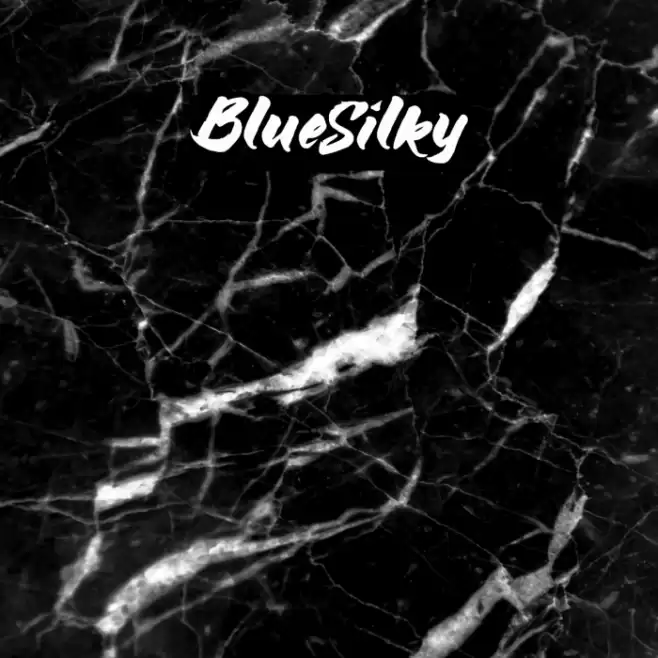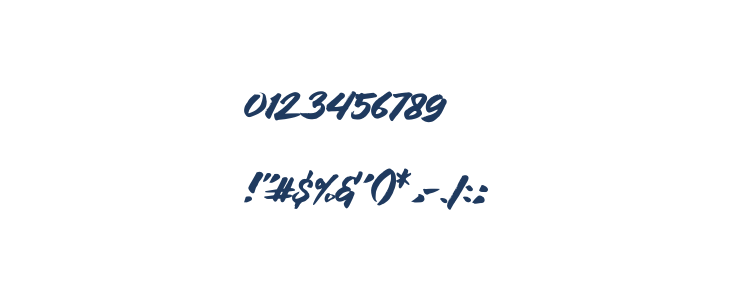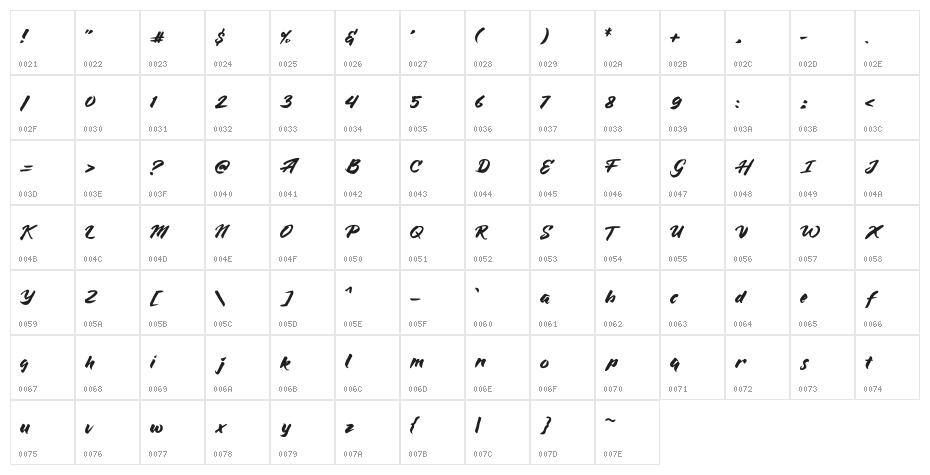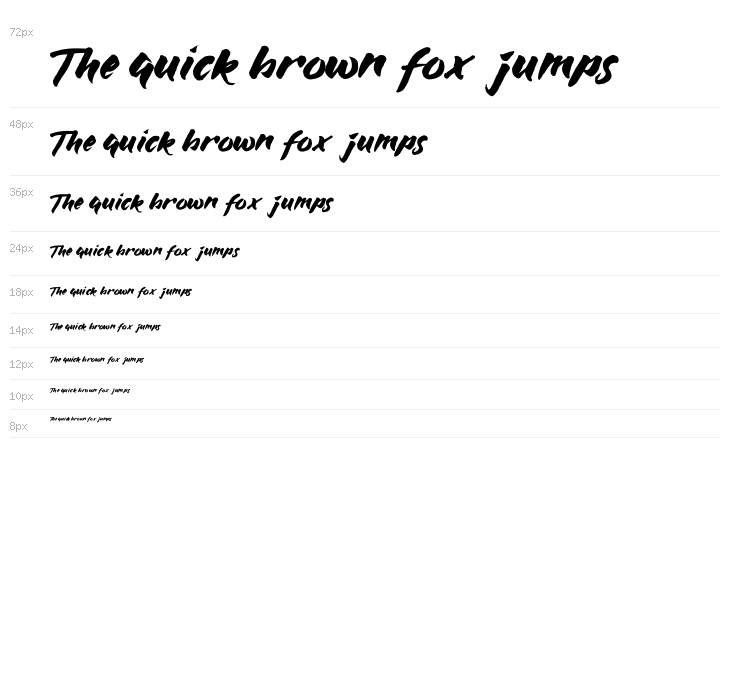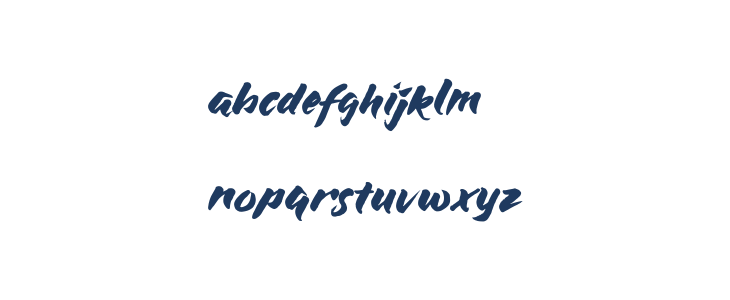
BlueSilky Font
BlueSilky Description
This font features a bold and dynamic script style, characterized by its fluid and connected strokes. The letters exhibit a sense of motion and elegance, with a slight slant that adds to its energetic appearance. The uppercase letters are prominent and expressive, while the lowercase letters maintain a consistent flow, enhancing readability. The numbers and special characters are crafted with the same attention to detail, ensuring a cohesive look across all elements. This font's design is both modern and artistic, making it suitable for a variety of creative applications.
A bold, dynamic script font with fluid, connected strokes and a modern artistic style from Uncategorized fonts.
- Proposed Projects: Ideal for branding, invitations, greeting cards, and artistic projects that require a touch of elegance and flair.
- Overall Style: Modern, Artistic
- Use Case: Logos, Invitations, Greeting Cards